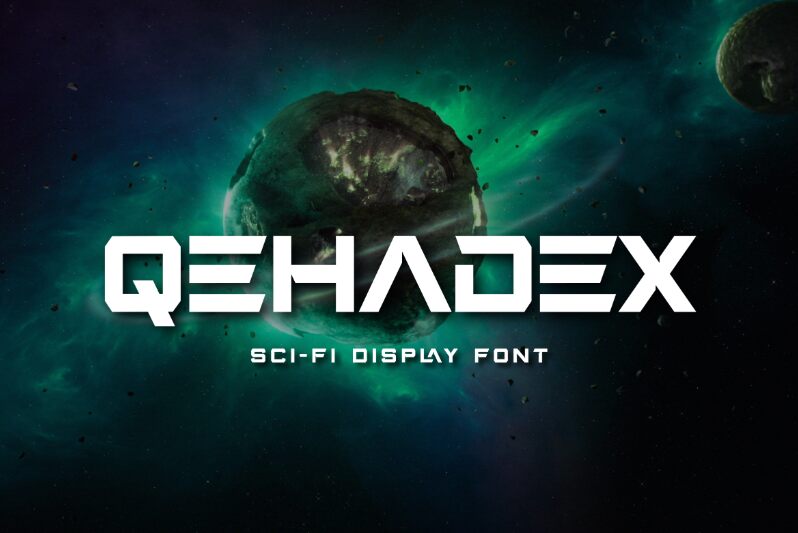
QEHADEX
Qehadex font by UI Creative is a free display font with a futuristic and modern design. This expanded typeface is geometric, minimalistic, and comes with an overall symmetrical appearance. It features sharp angles with edgy elements that combine into a technical look which leaves it ready for projects that require something unique.